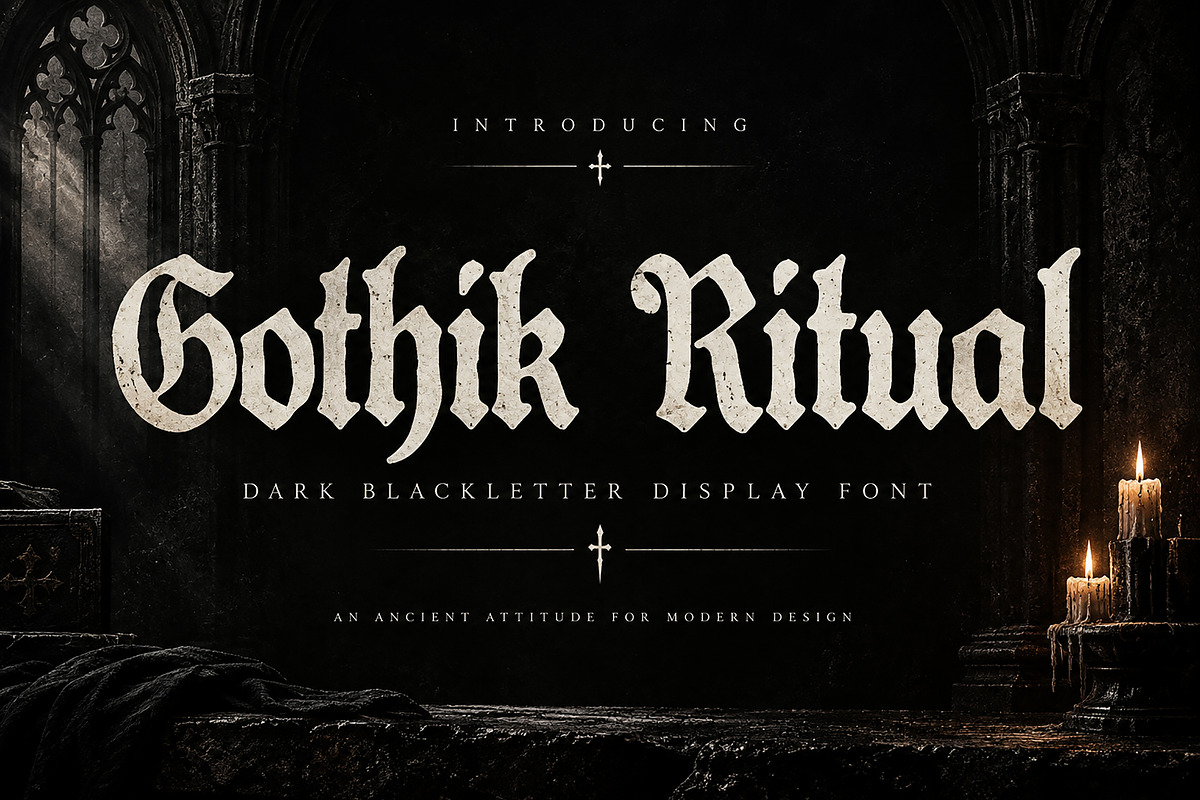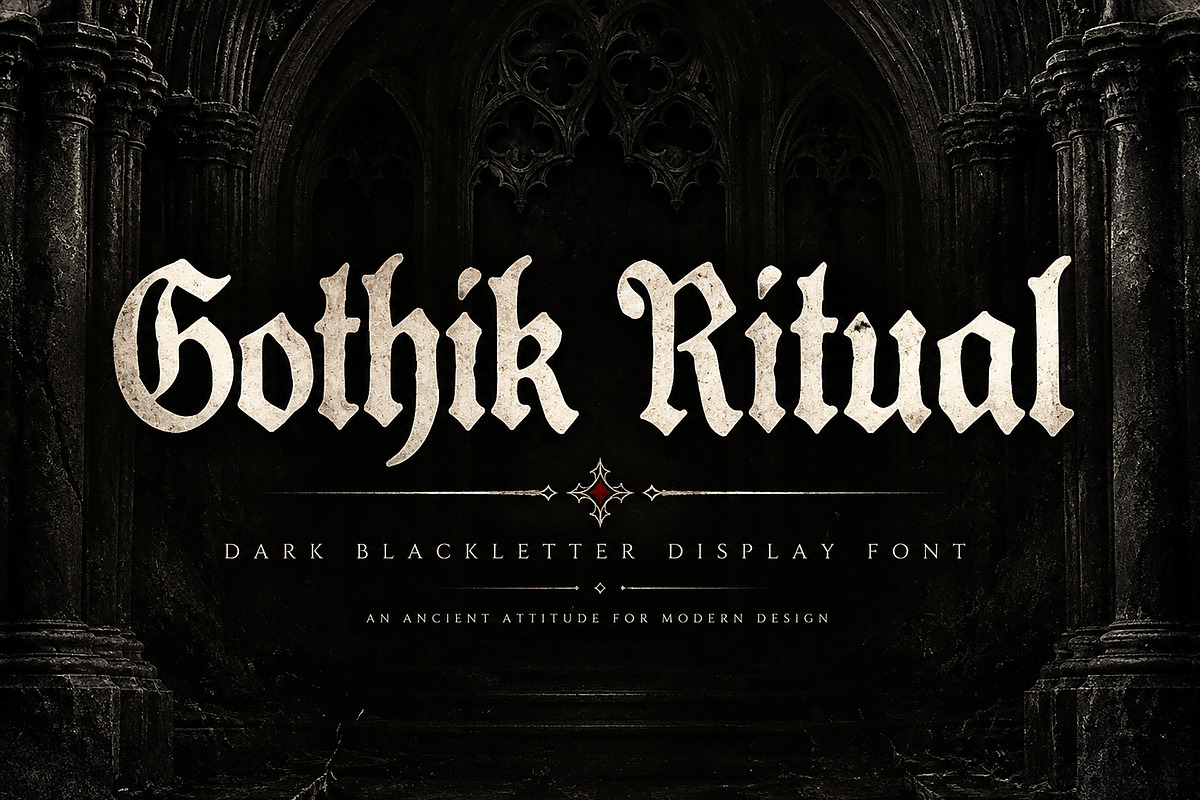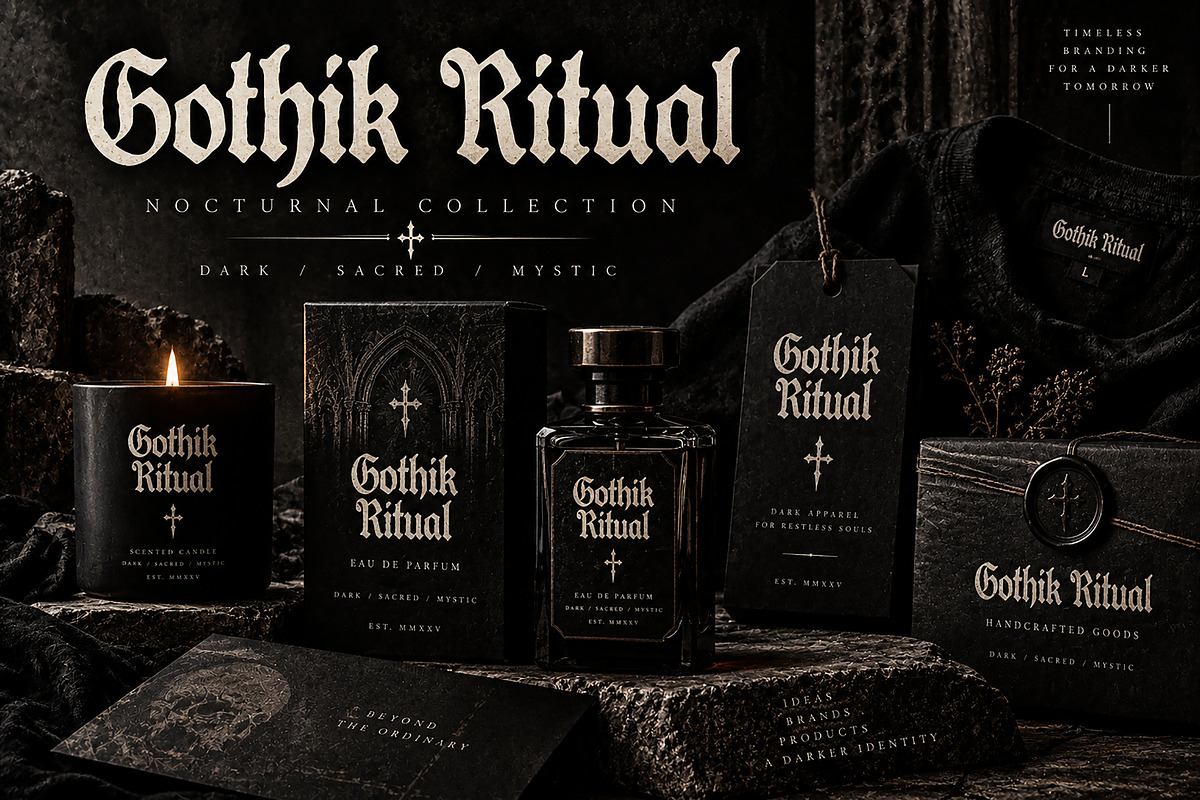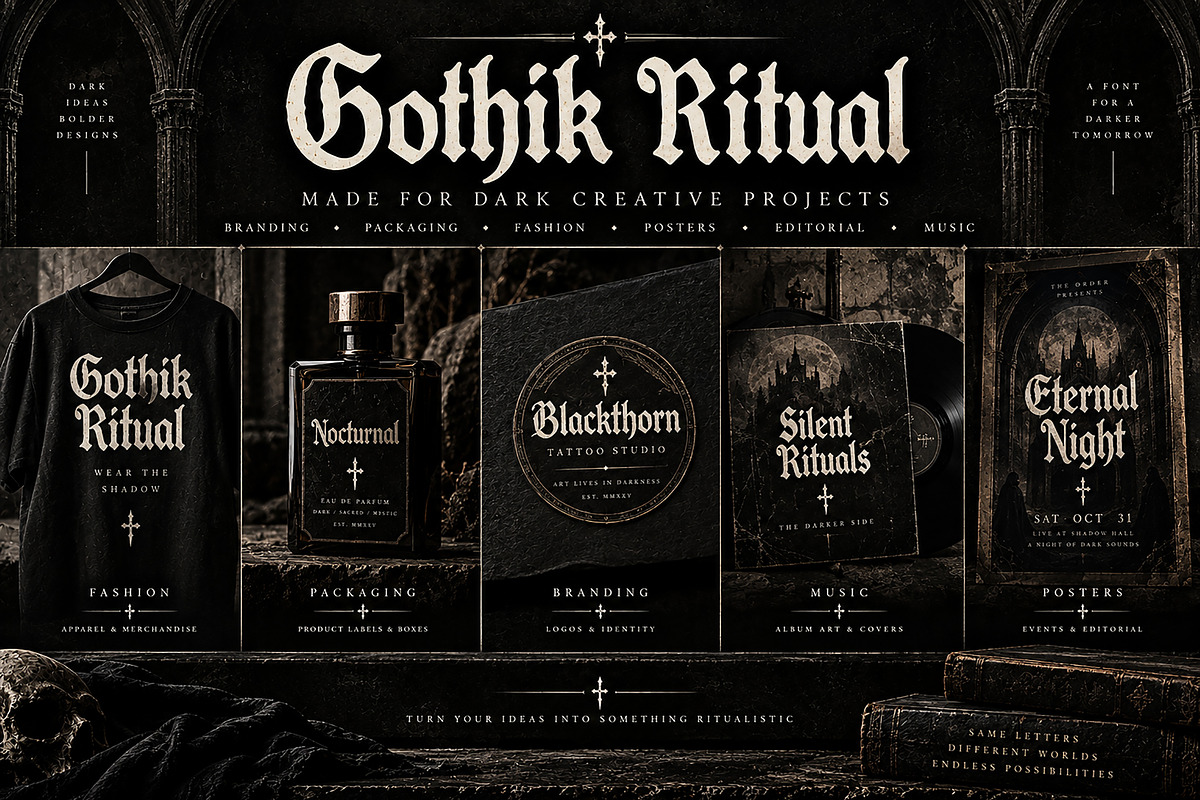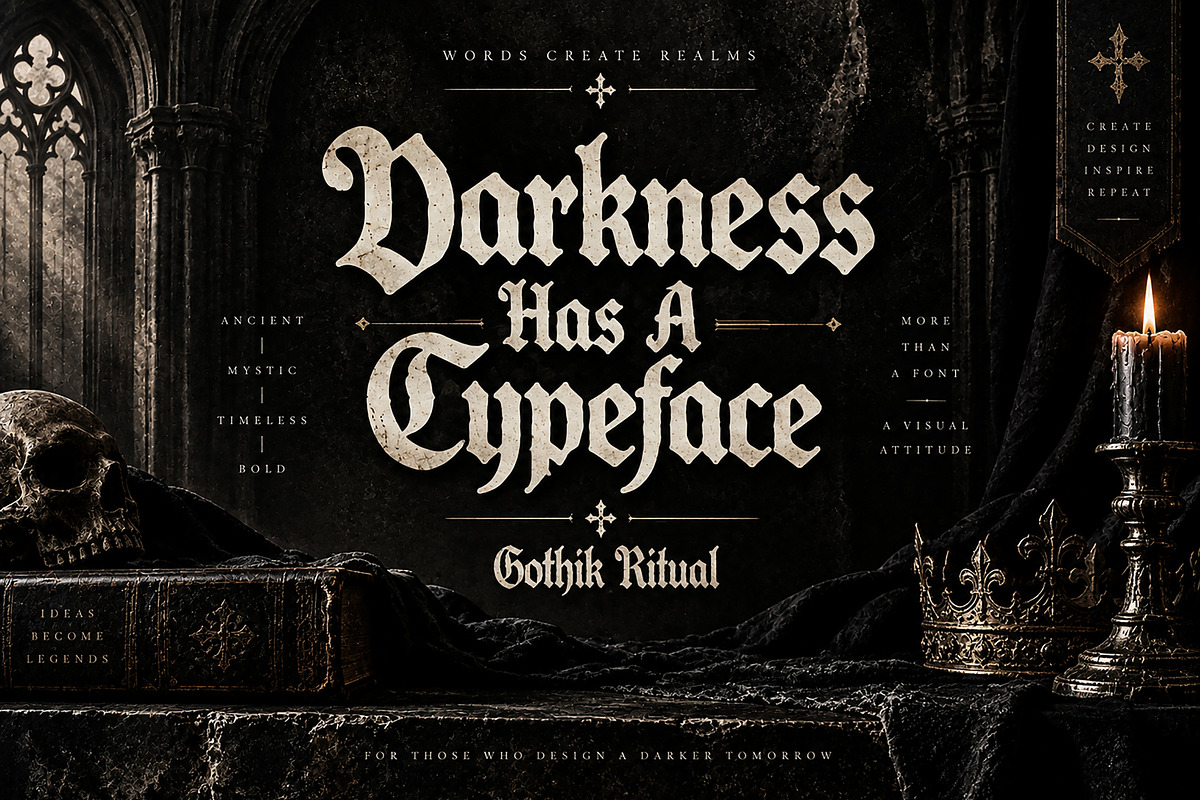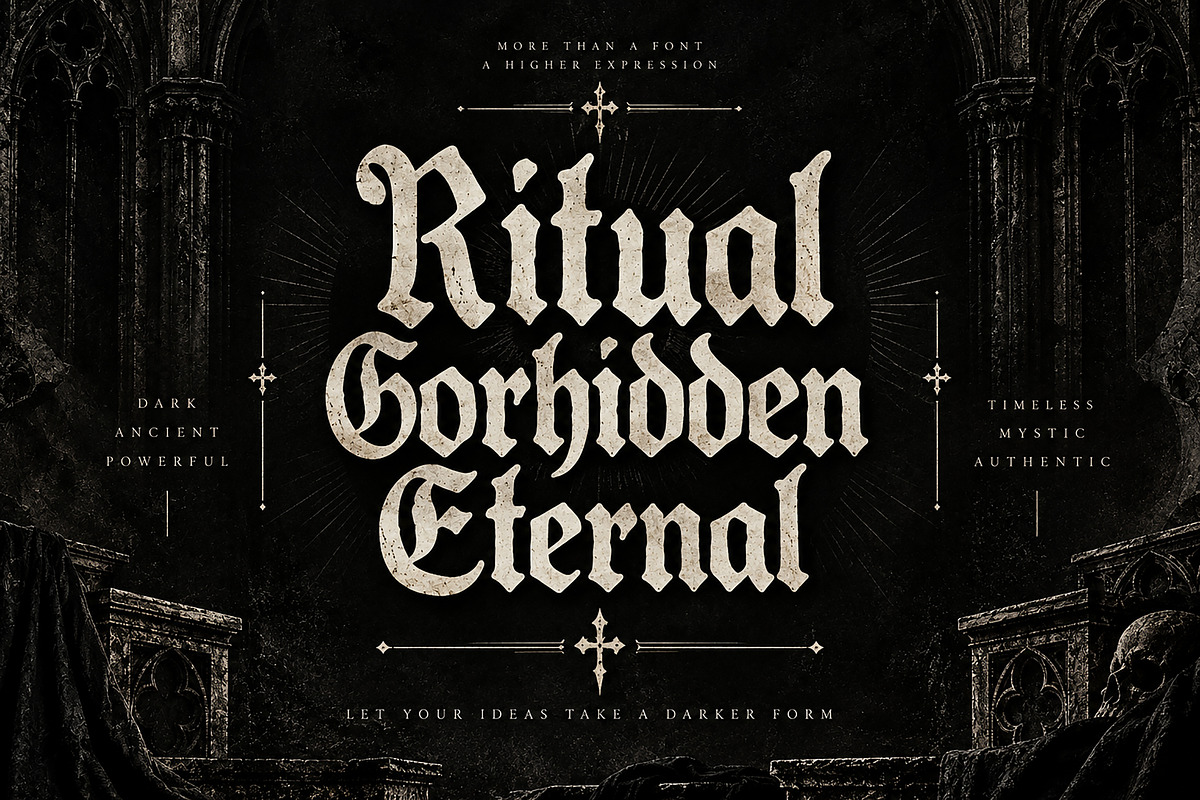
Gothik Ritual — Timeless attitude.
Gothik Ritual — Dark letters. Timeless attitude.
Gothik Ritual is a bold and atmospheric Gothic Blackletter display font created for designers who want their typography to feel dark, mysterious, powerful, and timeless.
Inspired by traditional blackletter aesthetics with a dramatic modern edge, Gothik Ritual brings an intense medieval and ritualistic character to your creative projects. Its strong letterforms and distinctive gothic details make it ideal for designs that need an unforgettable visual presence.
Perfect for dark branding, fashion graphics, album artwork, posters, packaging, labels, editorial designs, merchandise, tattoo-inspired projects, event graphics, and other bold creative applications.
Whether you're creating a mysterious luxury brand, an underground fashion identity, a dark music cover, or a striking poster, Gothik Ritual is designed to turn ordinary words into powerful visual statements.
Gothic & Blackletter Branding
Fashion & Streetwear Designs
T-Shirt & Merchandise Graphics
Album Covers & Music Artwork
Posters & Event Graphics
Product Packaging & Labels
Tattoo-Inspired Designs
Editorial & Magazine Layouts
Logo & Wordmark Concepts
Dark Luxury Branding
Medieval & Occult-Inspired Designs
Style: Gothic / Blackletter / Medieval Display